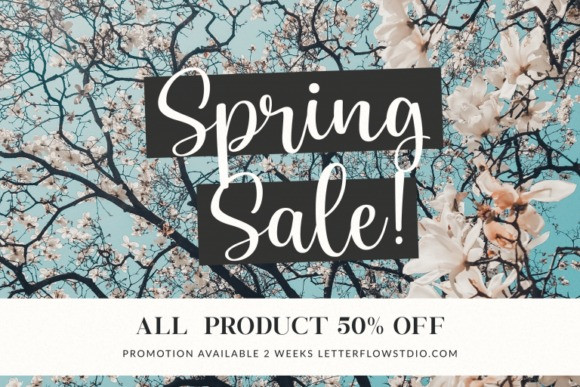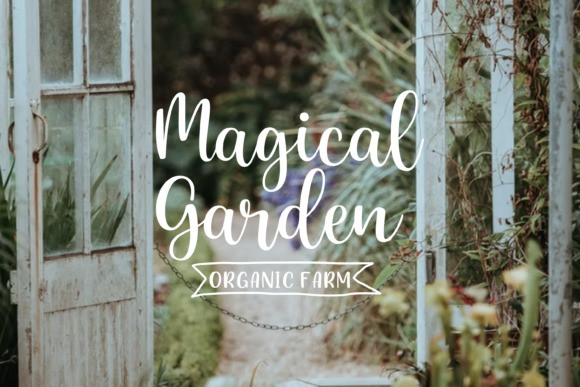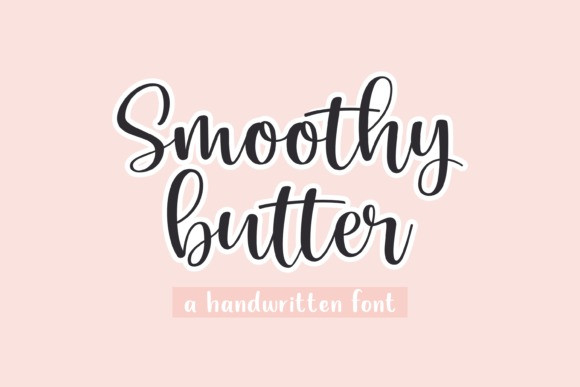
Smoothy Butter Font
Smoothy Butter Font is a beautiful and refined script font. It has a classy, elegant and modern look that can be used for logos, branding, invitations, stationery, wedding designs, social media posts, and much more!